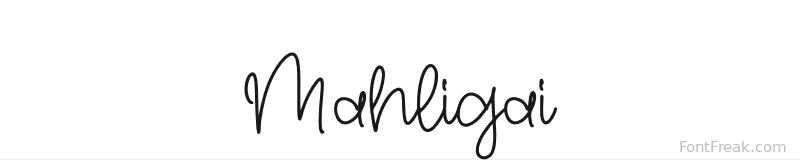
Mahligai
The Mahligai font, designed by Perspectype Studio in 2021, is a captivating script typeface that beautifully blends elegance and modernity. This font features a flowing, handwritten style that exudes a sense of warmth and personality, making it ideal for a variety of creative projects. The stroke weight is consistent yet has a slight variation that adds character and liveliness to each letterform, while the graceful curves and flourishes provide a touch of sophistication. The generous spacing between characters enhances readability, allowing this font to shine in both large and small text applications.
Mahligai is perfect for a range of specific use cases, including wedding invitations where its romantic flair can set the tone for a memorable celebration. It can also elevate restaurant menus, providing an appealing aesthetic that draws attention to the culinary offerings. Additionally, this font works wonderfully for greeting cards, branding materials for small businesses, or social media graphics aimed at content creators looking to stand out. Its versatile nature makes it suitable for graphic designers who appreciate a blend of artistry and functionality.
What truly sets the Mahligai font apart is its ability to convey emotion through its flowing lines and distinctive style. Whether used in digital or print formats, this font adds a unique flair that captures attention and resonates with viewers, making the Mahligai font free download an excellent choice for those looking to elevate their design projects.